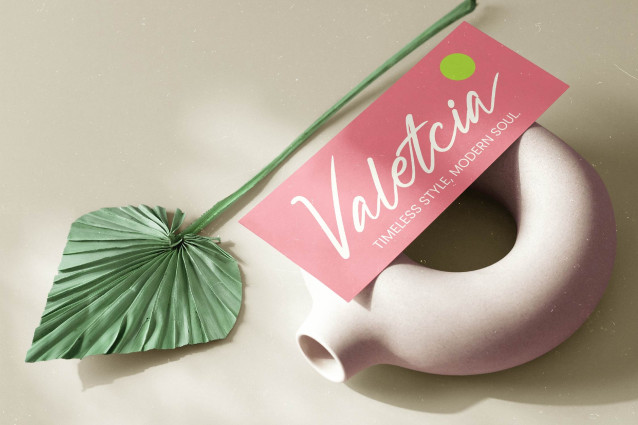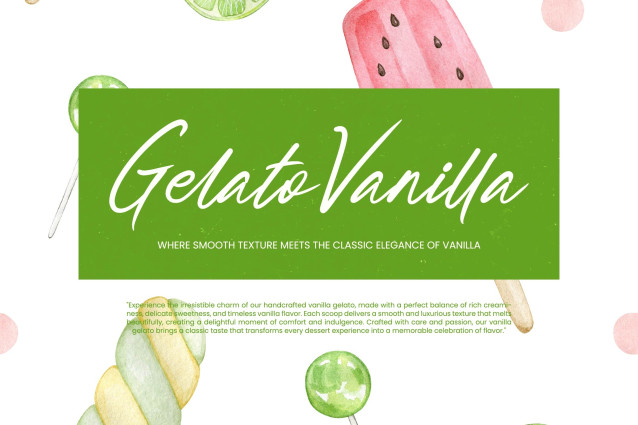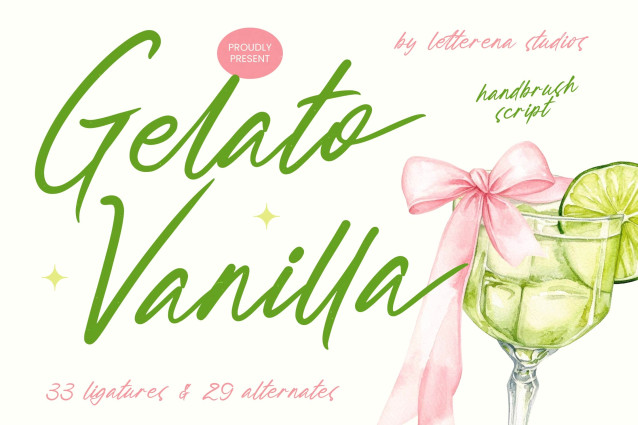
Gelato Vanilla – Handbrush Script captures the essence of authentic brushwork, offering a fluid aesthetic that feels both personal and sophisticated. Its expressive strokes and natural flow provide a distinct personality, ensuring your designs stand out with a premium, artisanal quality that resonates with modern audiences seeking authenticity.
Experience the perfect blend of versatility and professional precision through its rich typographic features. Boasting an impressive set of 33 ligatures and 29 alternates, Gelato Vanilla – Handbrush Script allows designers to customize every word for a truly bespoke look. This dynamic script ensures a seamless connection between characters, mimicking the organic rhythm of real handwriting while maintaining the clean legibility required for commercial success.